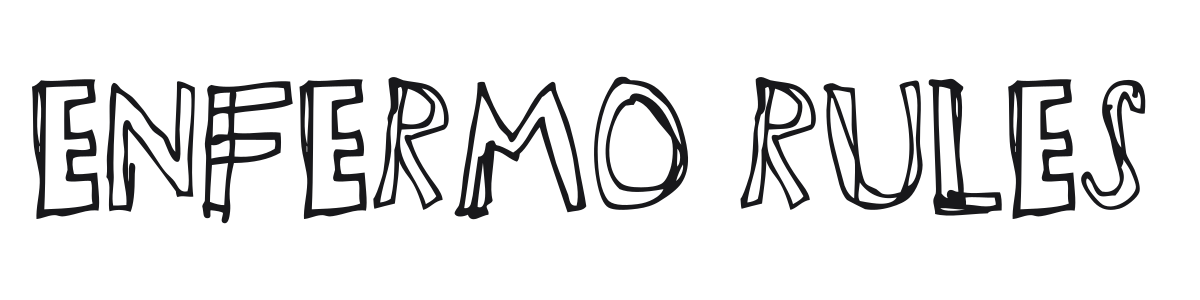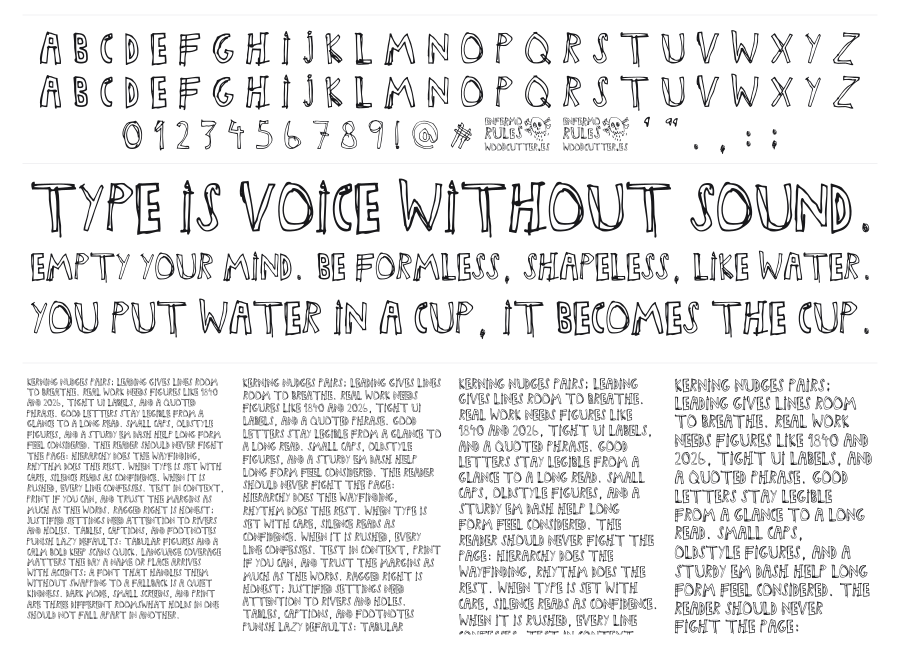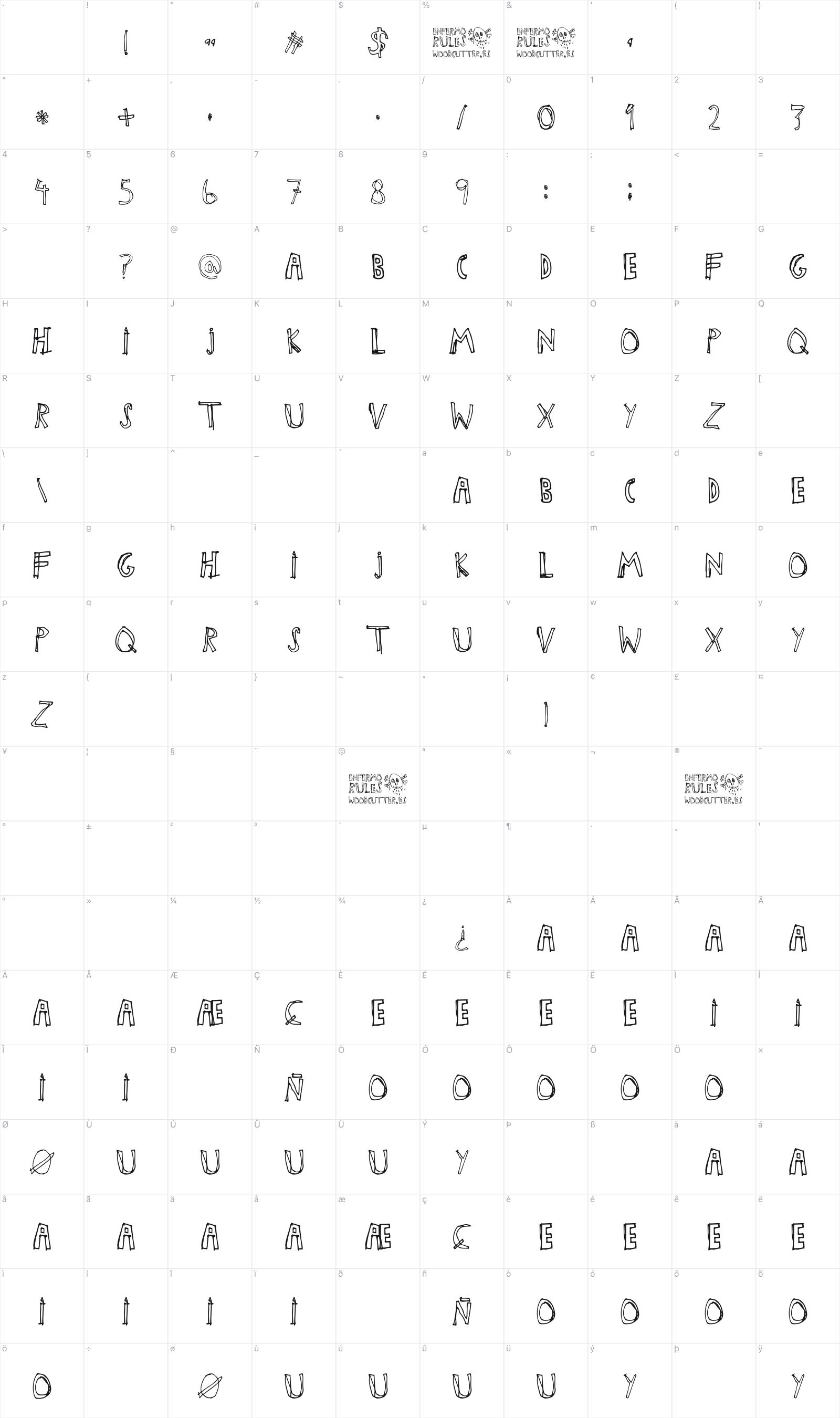
Enfermo Rules
Enfermo Rules is a hand-drawn outline display font with wobbly, irregular strokes that look like they were sketched quickly with a marker. The rough, imperfect outlines give it a raw, underground energy that suits zine covers, band posters, and anything that needs to feel handmade rather than polished. Each character carries its own slight quirk, which adds to the spontaneous feel.